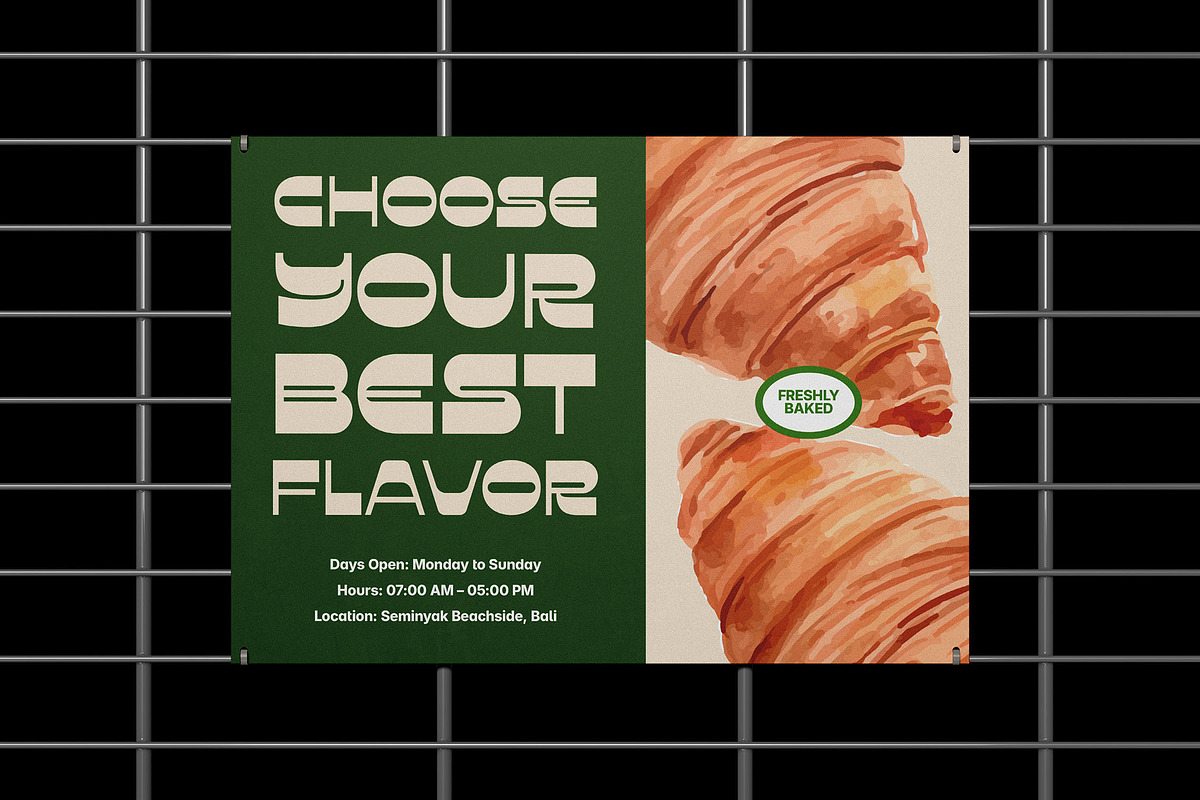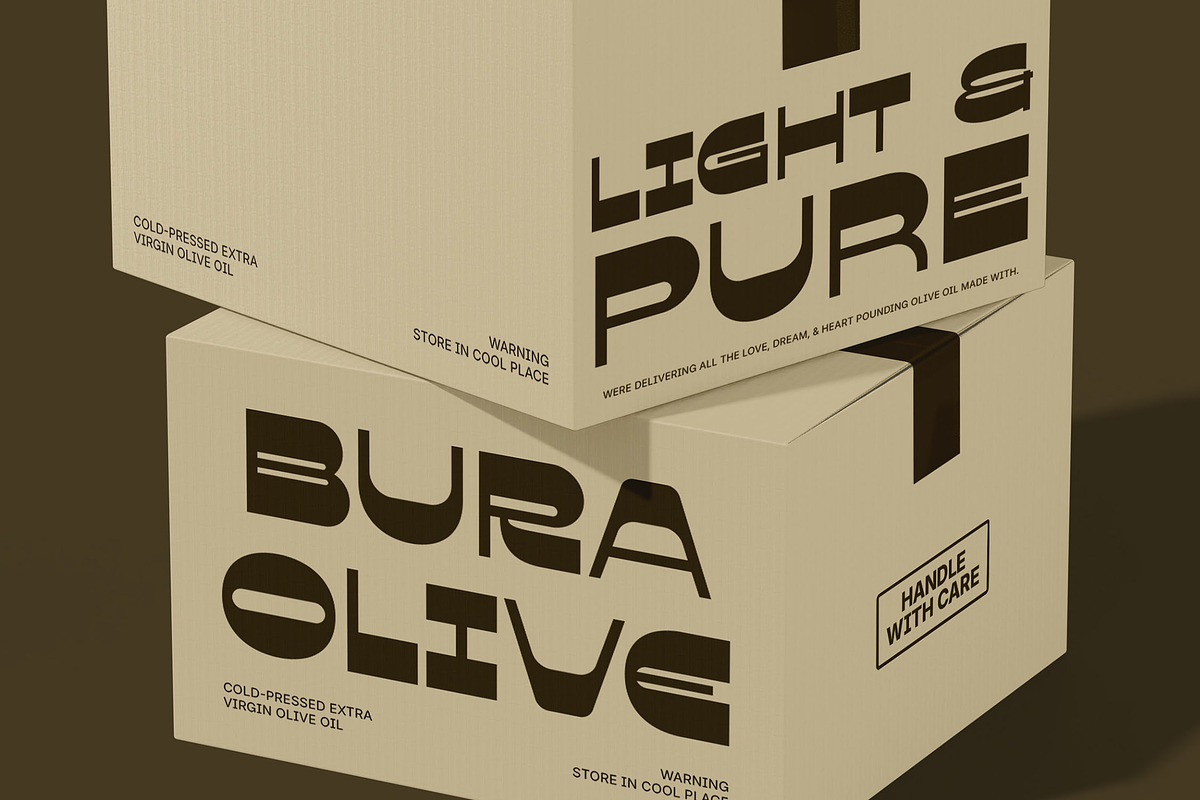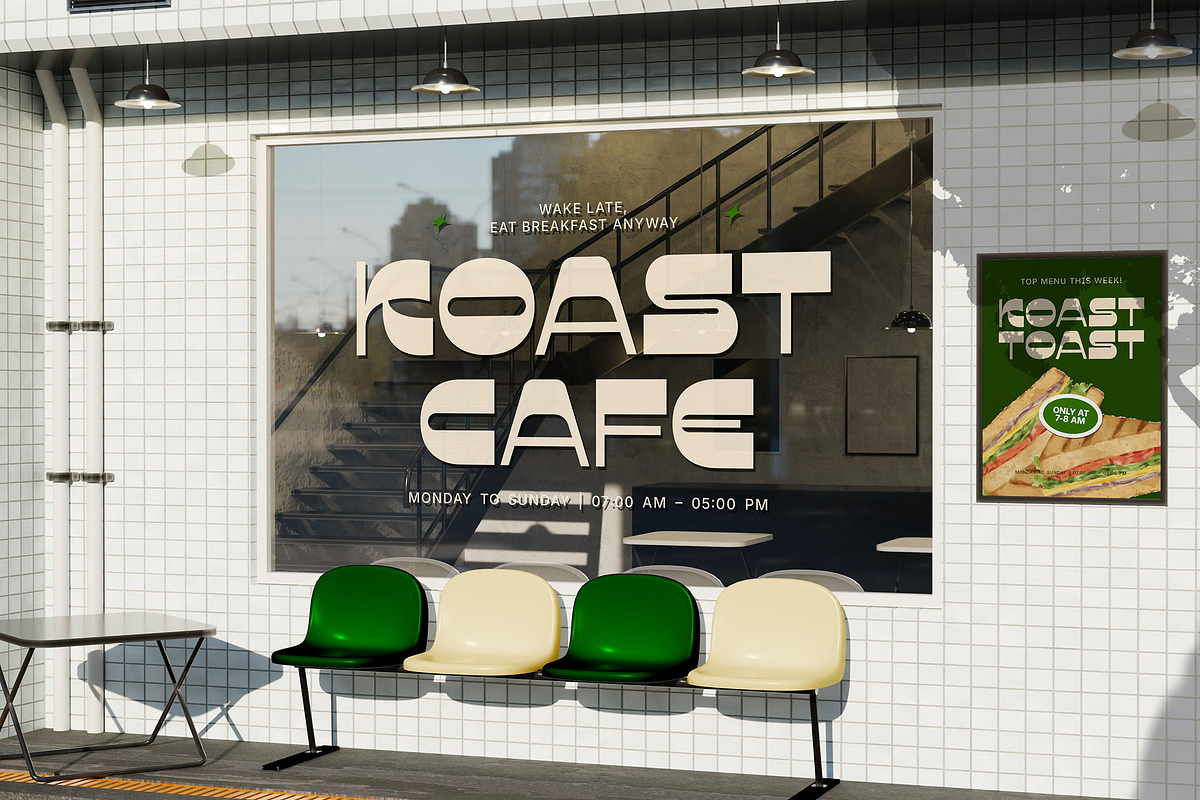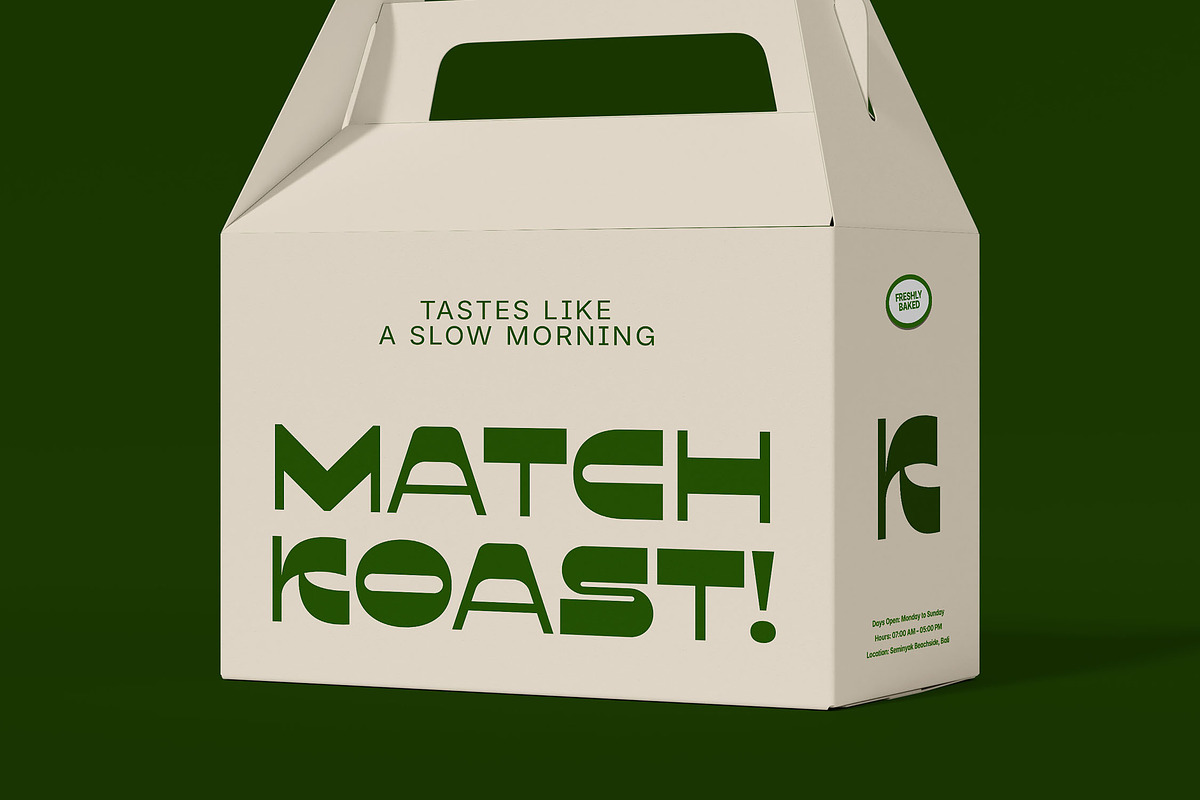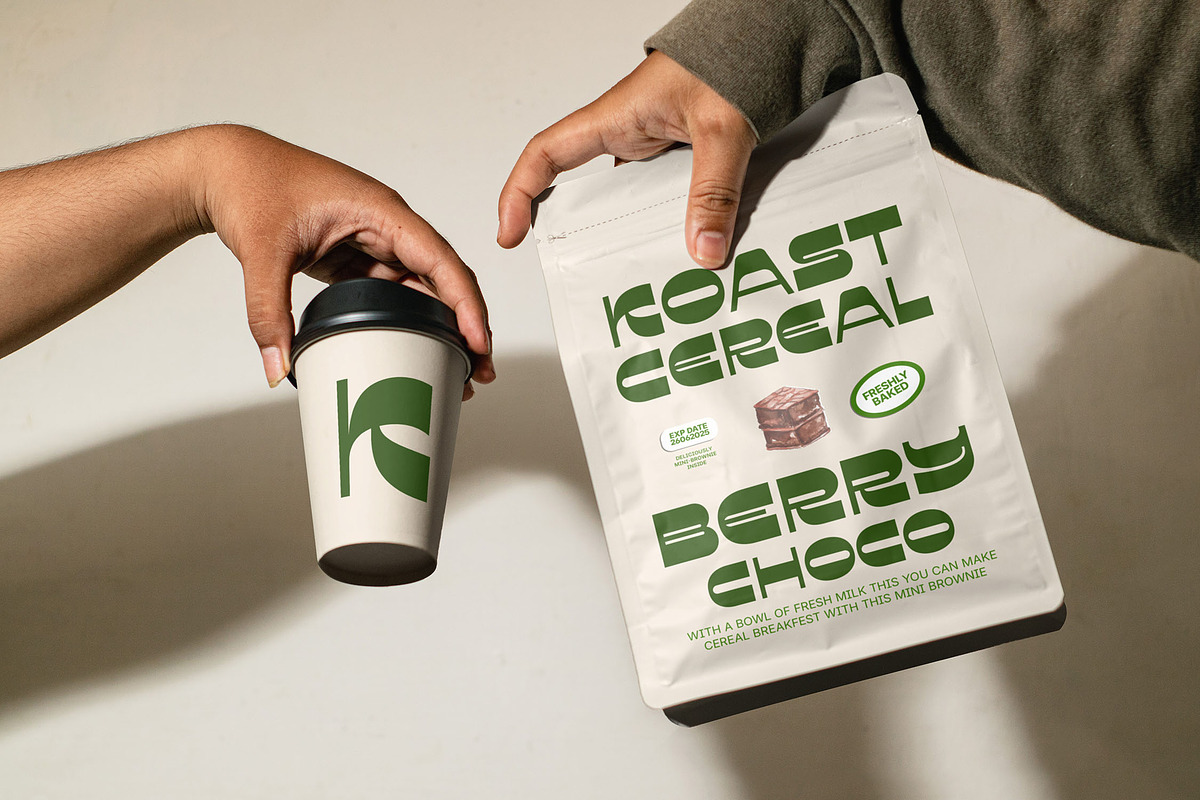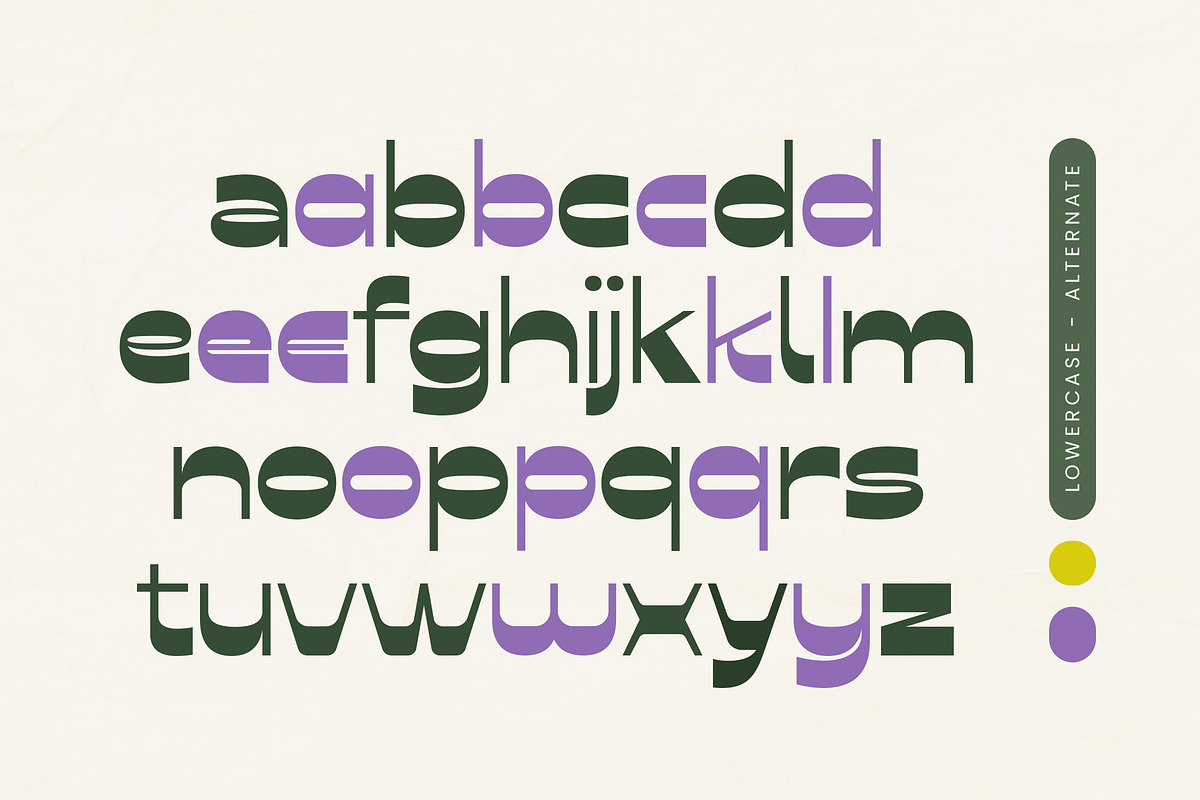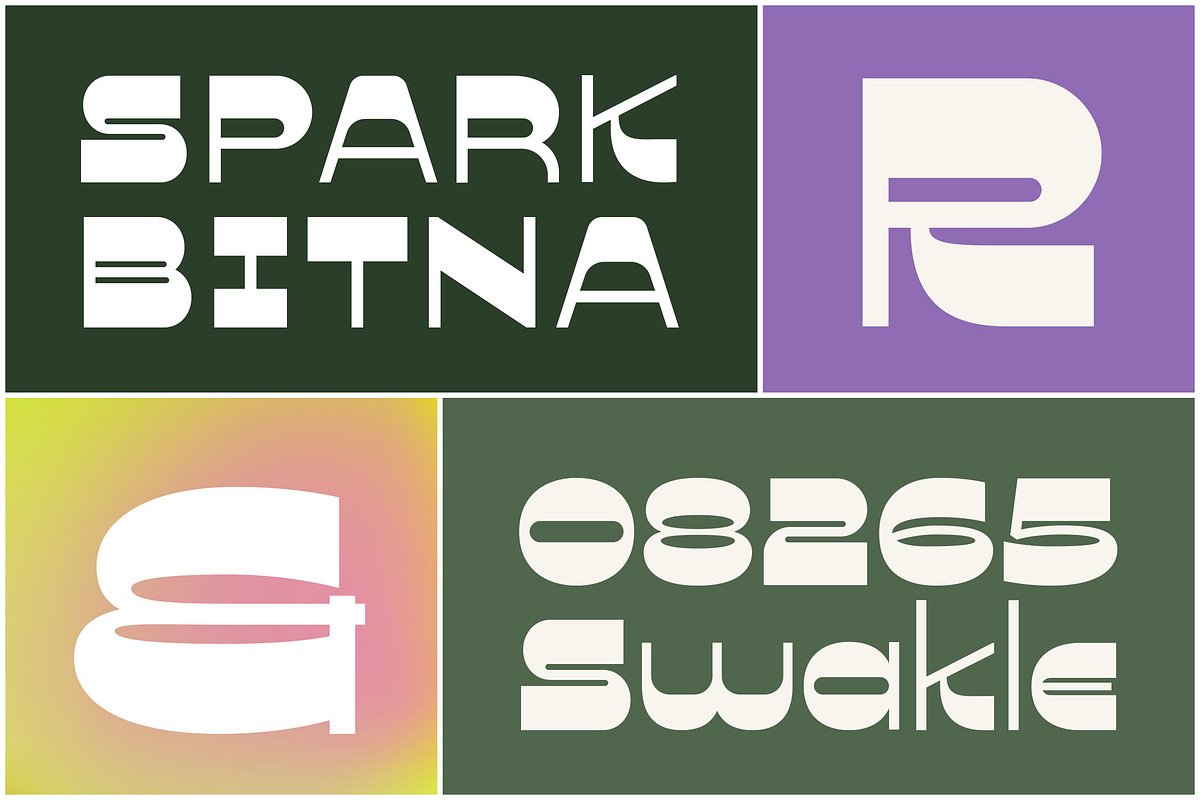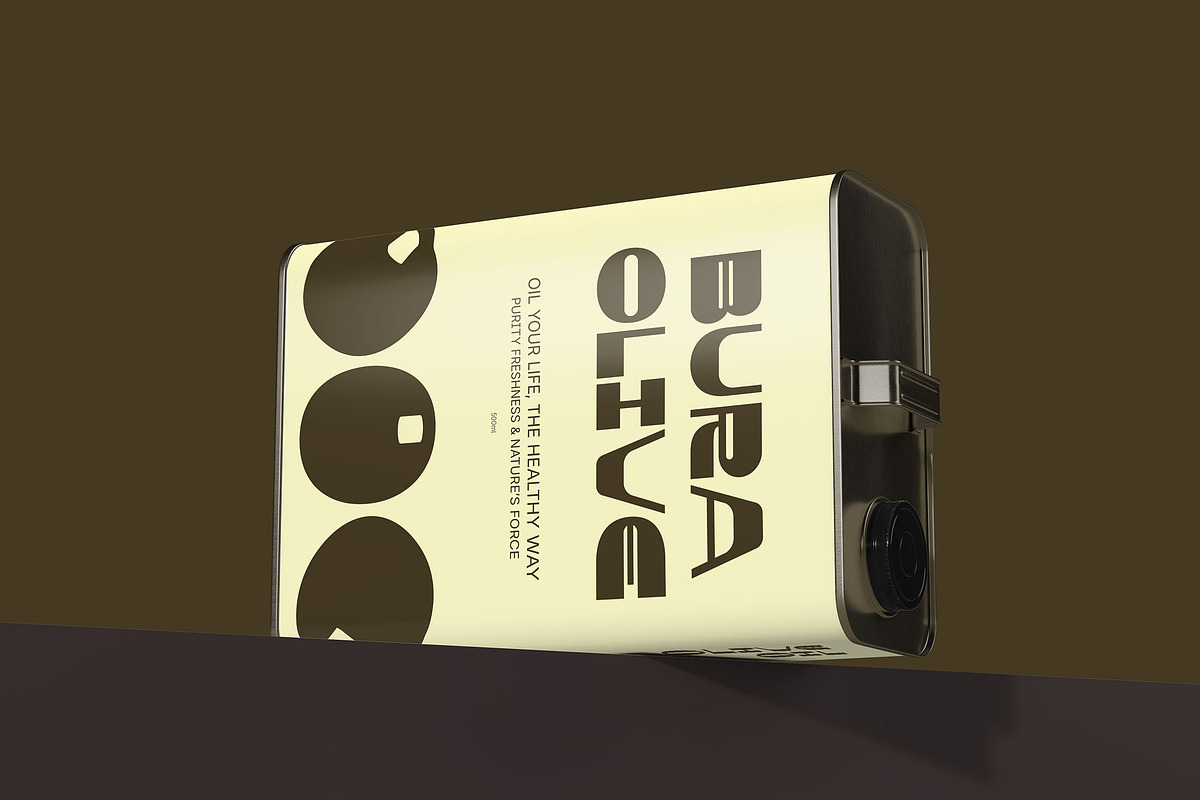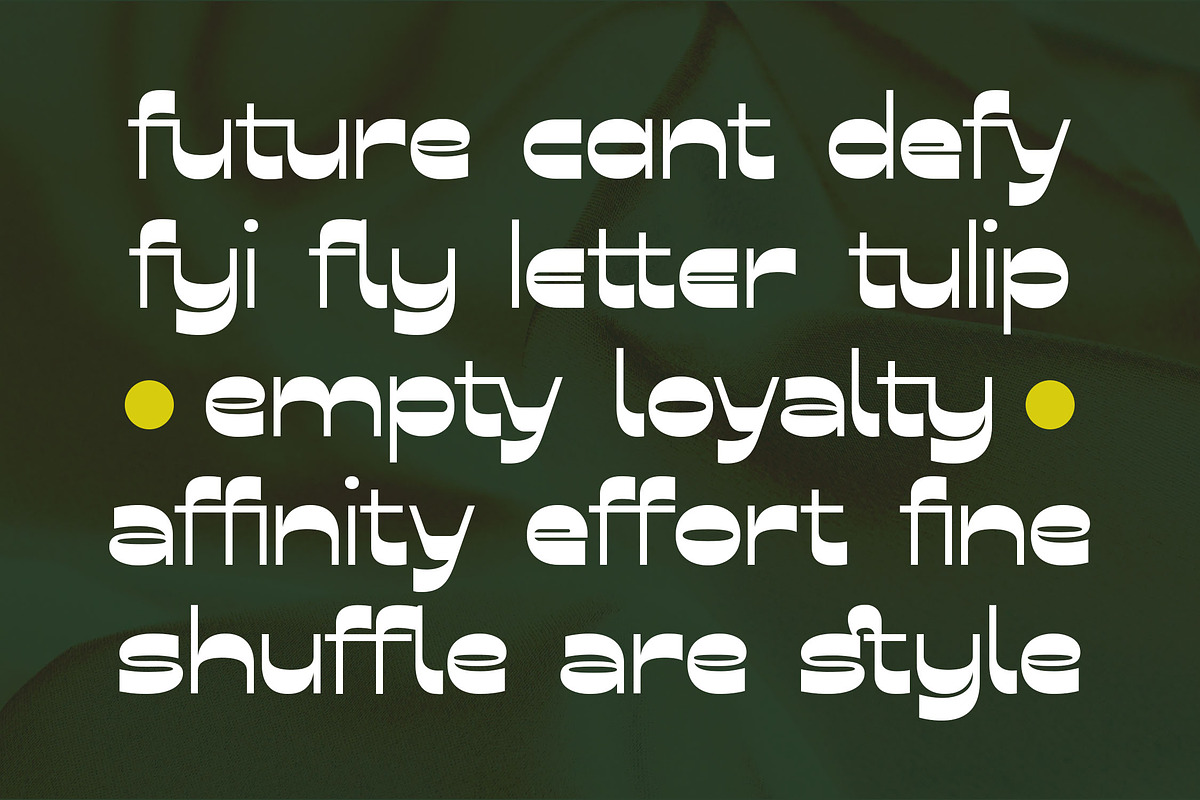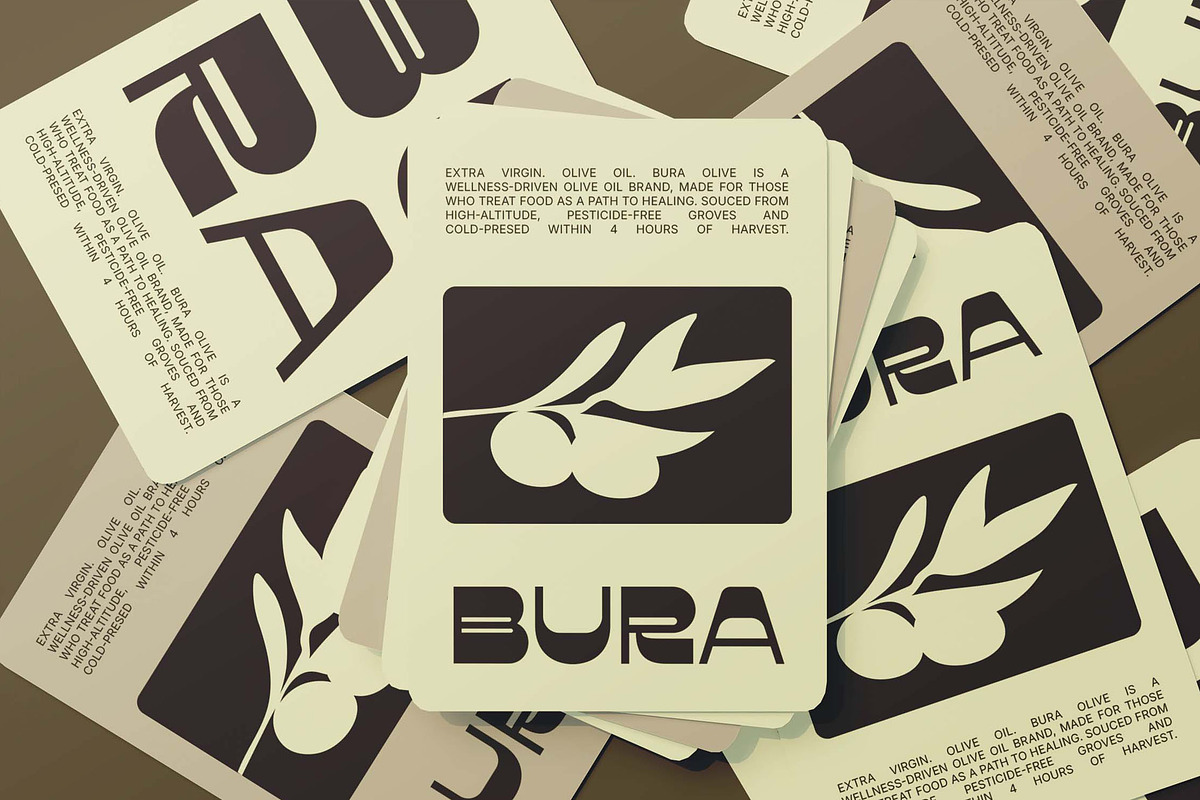
Quarkle - Modern Reverse Contrast
Quarkle - Modern Reverse Contrast Font - Unique Contemporary Branding & Product Design.
Quarkle is an innovative display sans-serif font featuring a captivating reverse contrast, offering a modern, unique, and highly eye-catching appearance, ideal for product branding, food and beverage packaging, advertising headlines, posters, signage, web design, logotypes and anyproject that aim to stand out and unique appeal. This font offers multilingual support and each character is crafted to attract attention with its uniqueness and style. With Quarkle, your designs will have a clear and modern visual appeal.